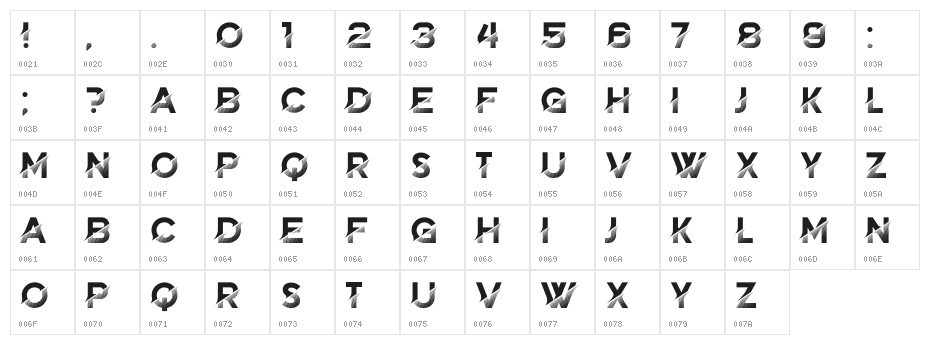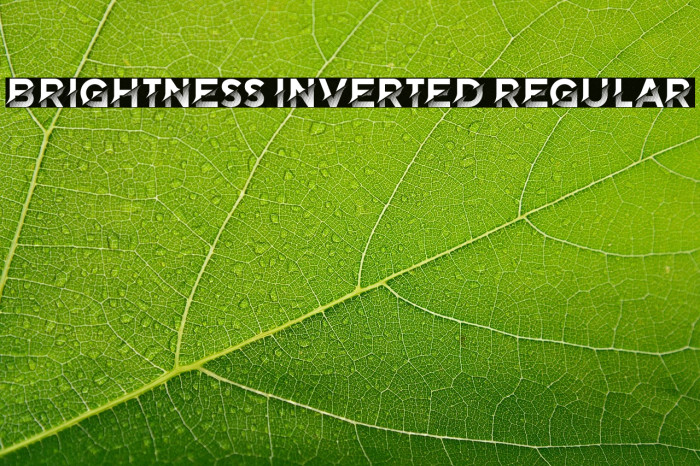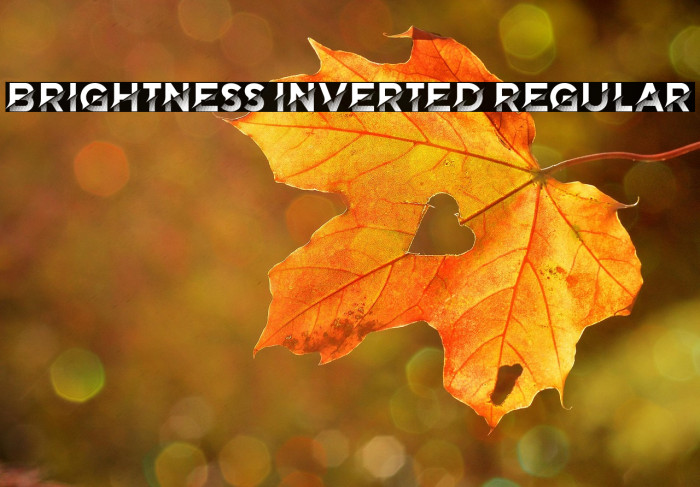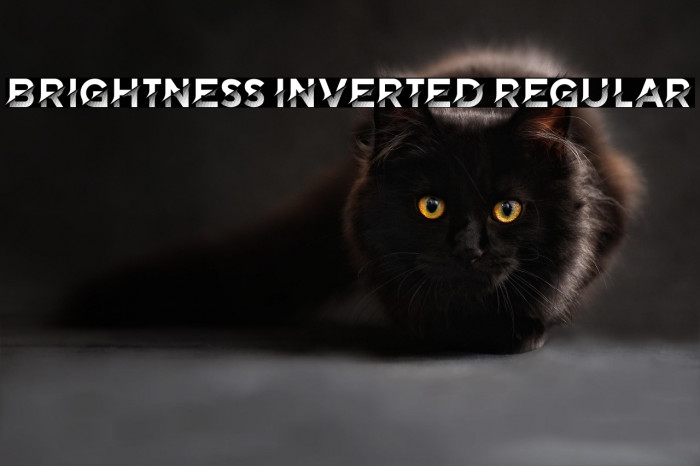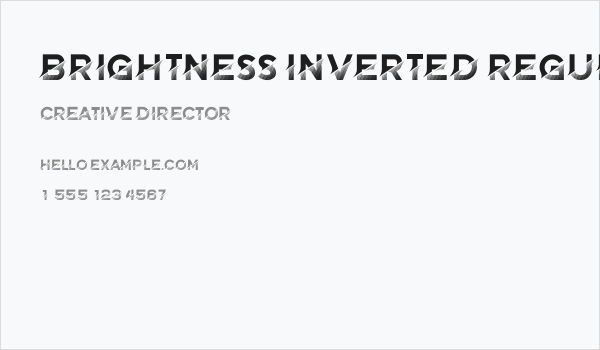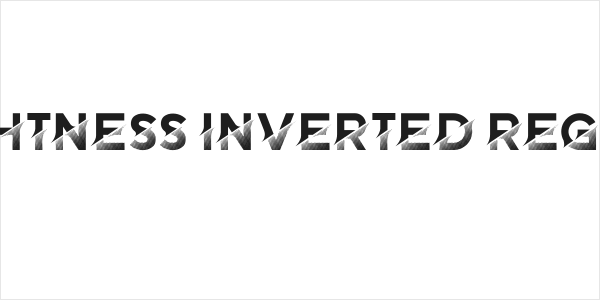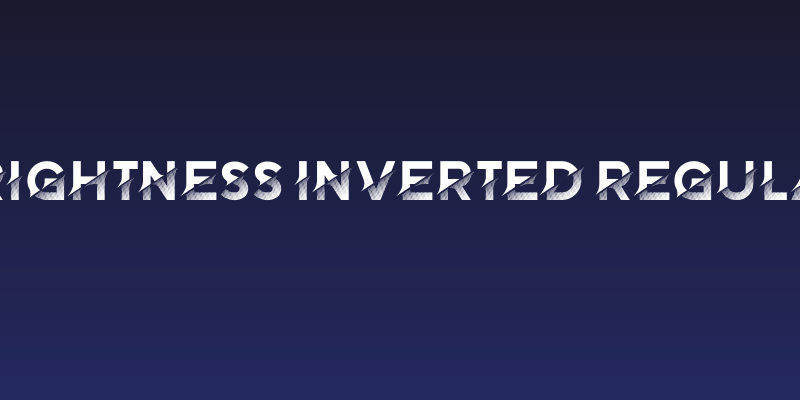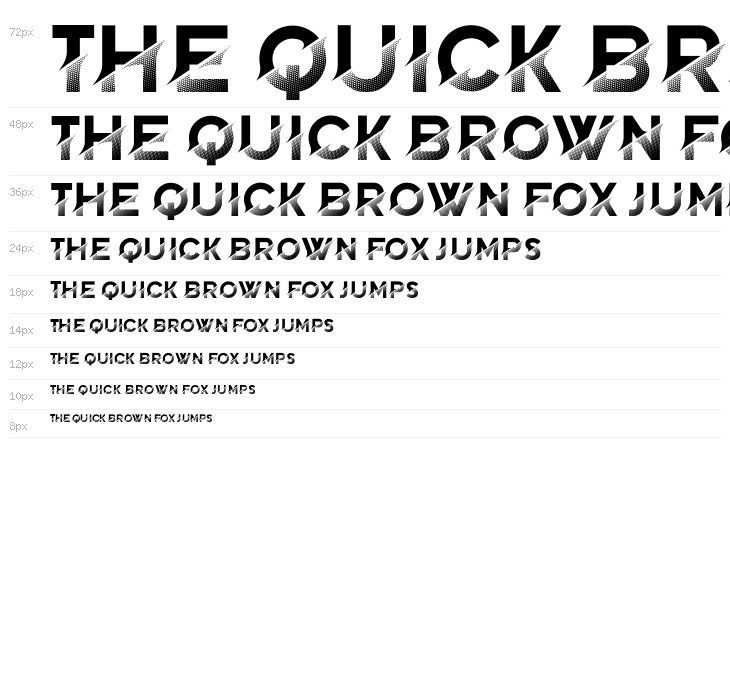
Brightness Inverted Regular Font
Brightness Inverted Regular Description
This font features a bold and striking design with a unique halftone pattern that creates a sense of movement and depth. The letters are uppercase and have a geometric structure, with sharp angles and clean lines. The halftone effect is applied diagonally across each character, giving it a dynamic and modern appearance. The numbers and special characters follow the same design principles, ensuring consistency throughout. This font is ideal for projects that require a bold statement and a contemporary feel.
| Proposed Projects | Ideal for posters, branding, and modern digital designs. |